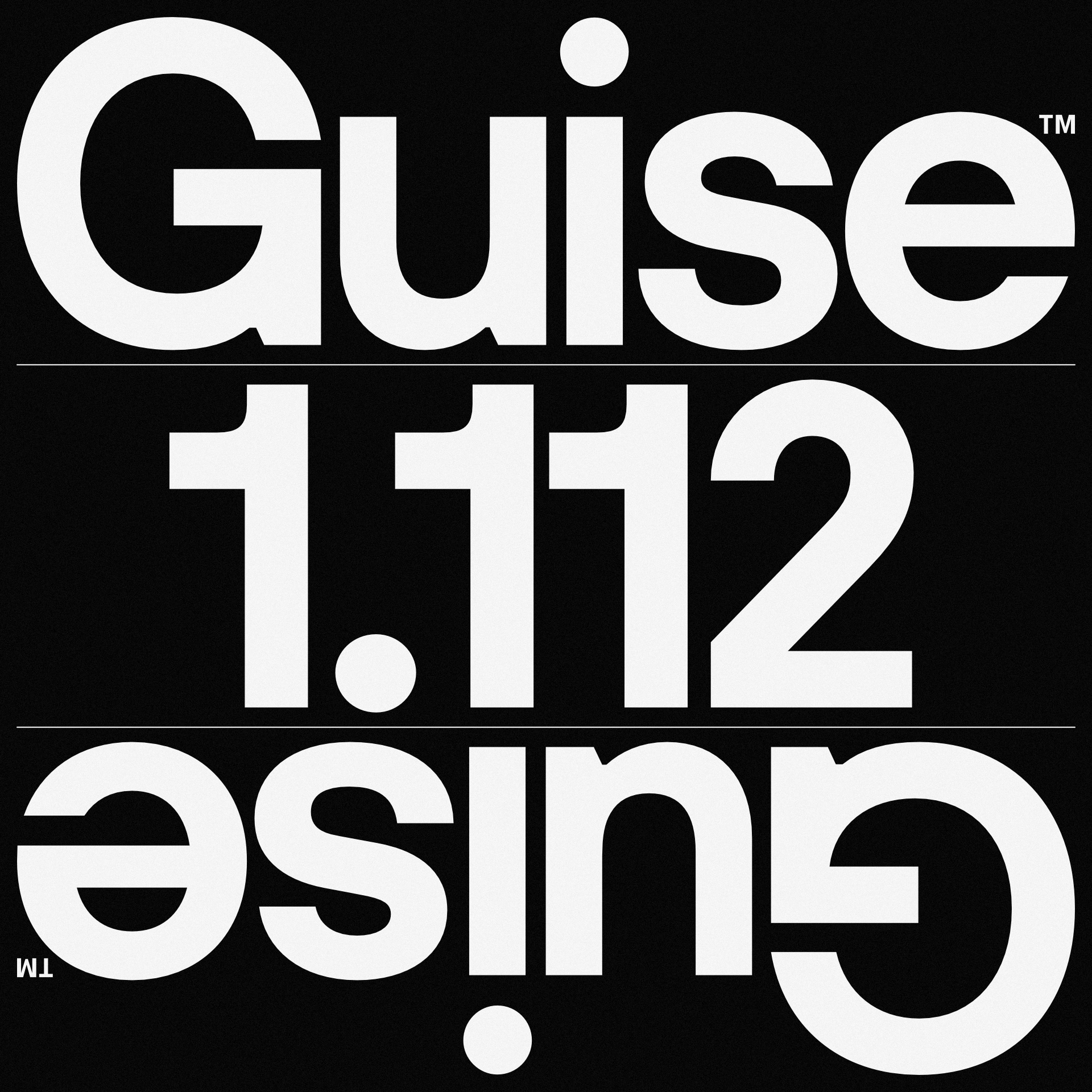
Font Updates: HK Guise™
HK Guise 1.112
- Micro tweaks to make the stems uniform
- Updated kerning and spacing to be more consistent
- Micro tweaks to the chamfers
- Horisontal bar of H fixed
- Modified the number “2”
- Modified the zero to be unique from the uppercase “O”
- Fixed the descender heights of the lowercase “g” and “j”
- Other micro tweaks to the geometry